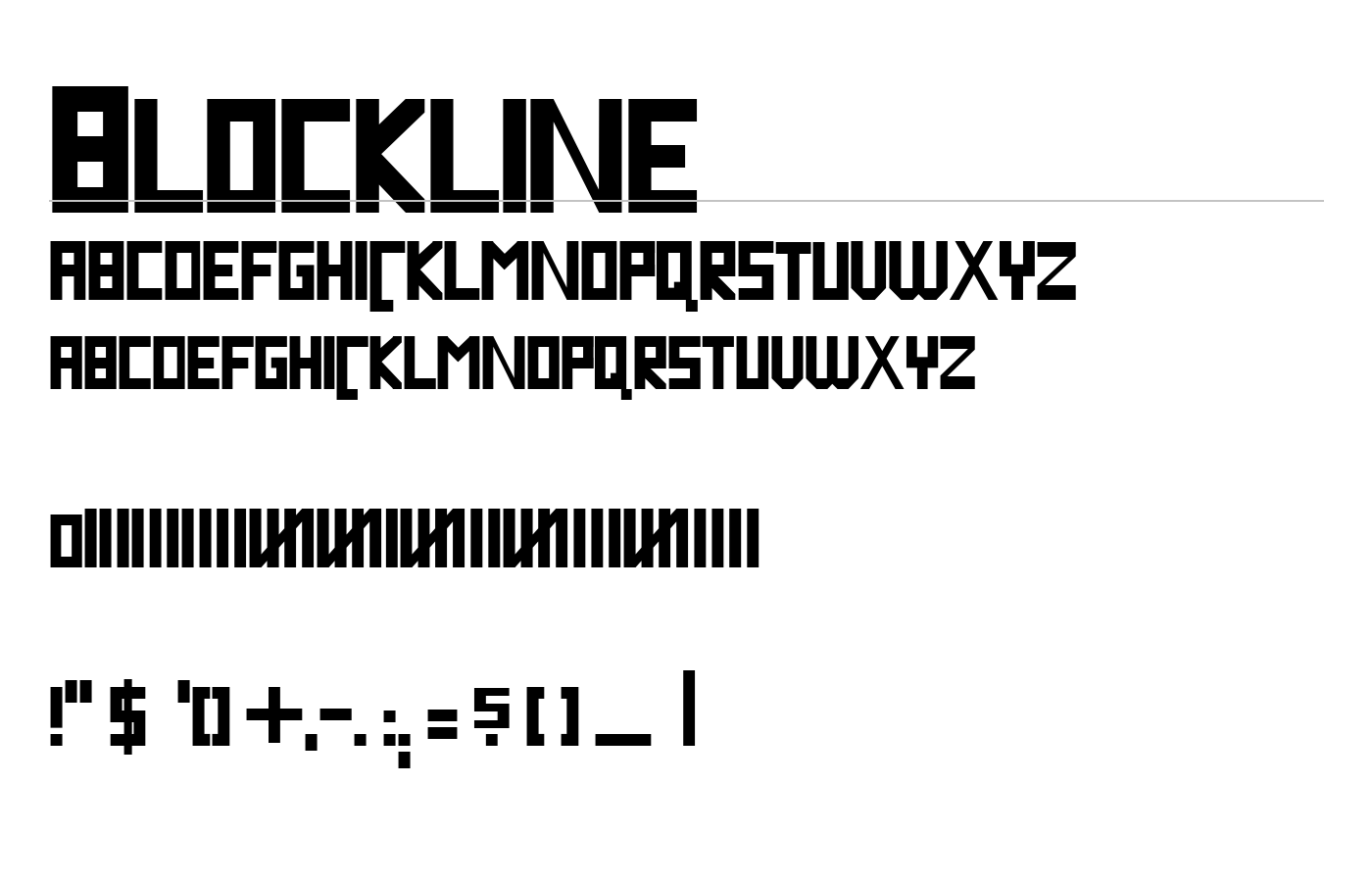
Blockline is a bold, condensed sans serif font with a distinctly geometric and blocky style, featuring sharp angles and uniform stroke widths that give it a modern, technical feel. Its uppercase letterforms exhibit a strong, industrial personality, making it perfect for impactful headlines, logos, and designs that require a futuristic or digital vibe. This font works best in display settings where clarity and boldness are essential, especially in tech, gaming, or urban-themed branding.
Blockline Font
About Blockline Font
| Font family | Blockline Font |
| Designer | loosydesign (fabian pfeifhofer) |